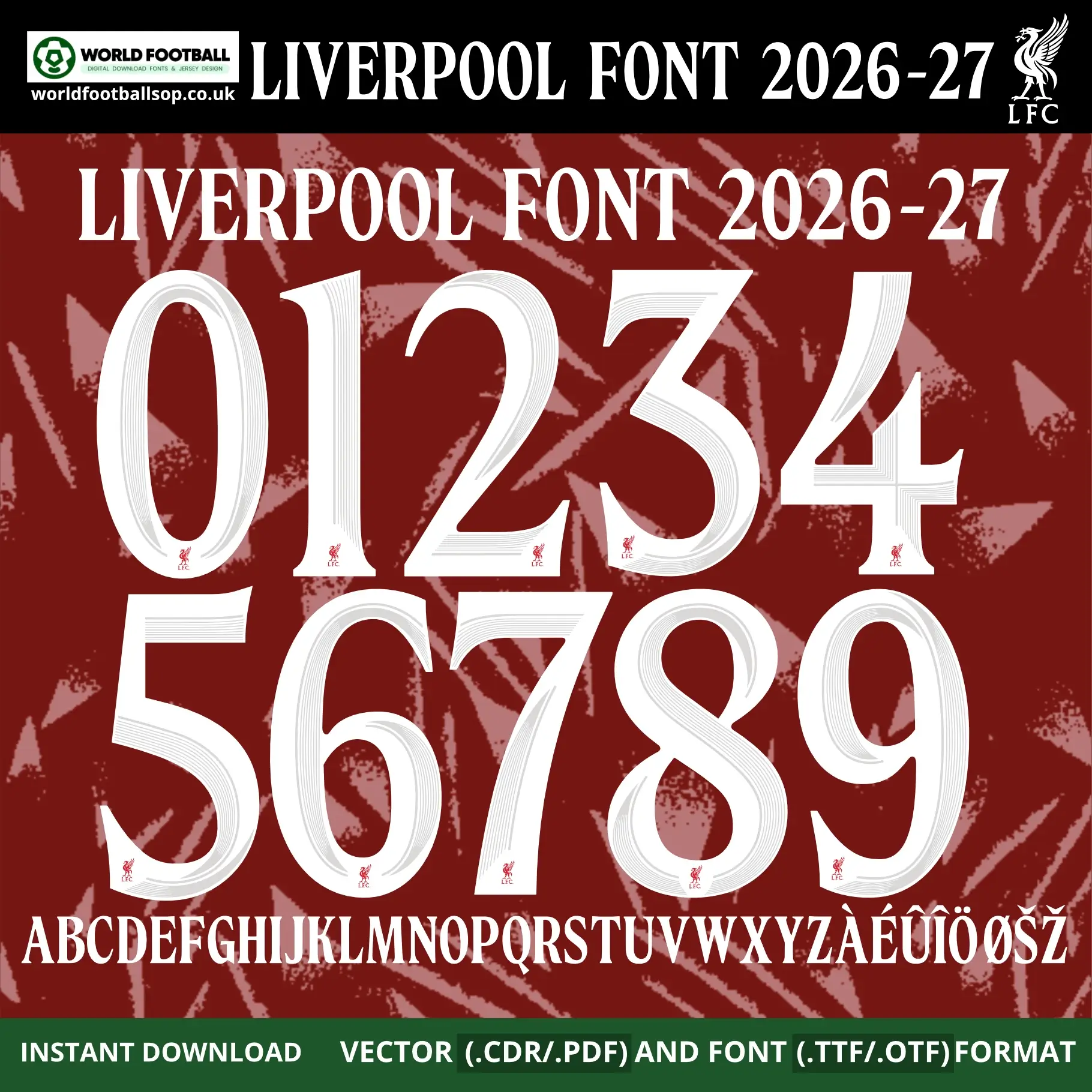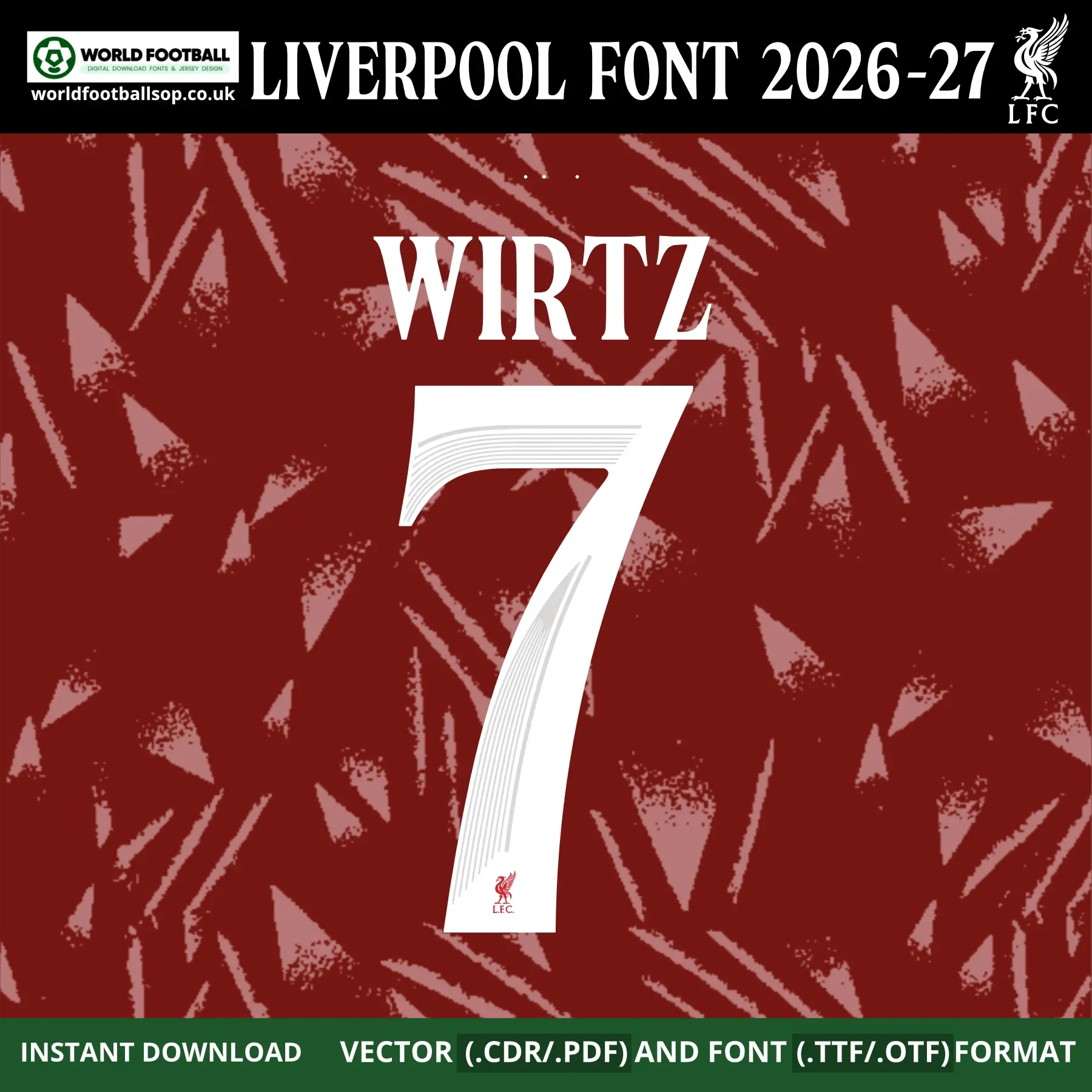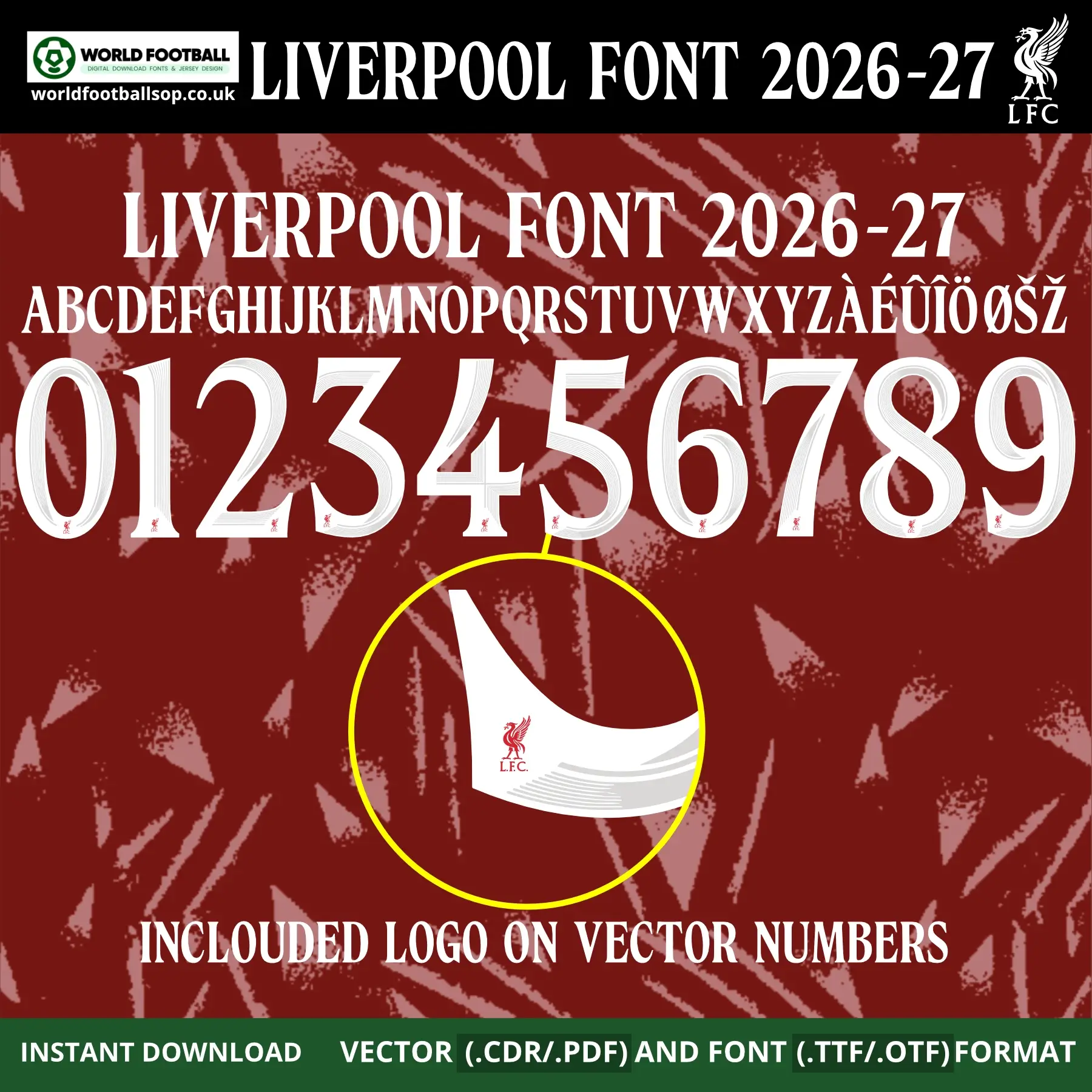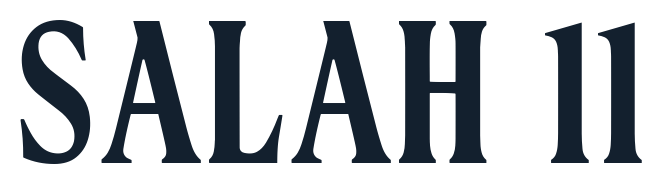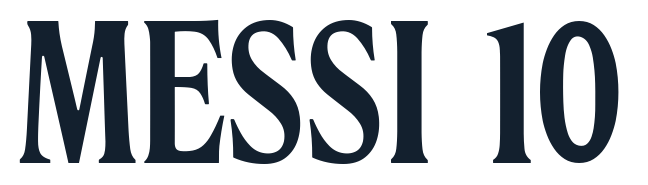
Liverpool Font UCL 2026-27 – Official‑style Jersey Typography
This Liverpool Font UCL & Cup 2026-27 recreates the distinctive, elegant lettering used on Liverpool’s iconic deep red home shirts for the 2026-27 UEFA Champions League and cup season at Anfield. The tall, wide numbers and letters feature a striking white fill with a beautiful multi-line parallel inner-stripe detail running through every character — creating an almost calligraphic, brushstroke-like effect that gives Liverpool’s typography a uniquely refined look unlike any other Premier League club font. Set against the iconic deep Anfield red background with its distinctive geometric diagonal slash and triangle pattern, these numbers carry the full visual weight of a night under the Anfield lights.
The font football is supplied in both desktop formats (TTF/OTF) and scalable vector files so you can work comfortably in your favourite design software. The clean white lettering with multi-line inner detail on the rich deep red Liverpool home kit background seen in the previews mirrors LFC’s official 2026-27 UCL colour palette, making your mockups and prints look instantly match-ready. Every vector number includes the embedded LFC Liver Bird crest logo for maximum authenticity, clearly visible at the base of each character.
Full uppercase alphabet A-Z and numbers 0-9 with extended accents (À, É, Û, Î, Ö, Ø, Š, Ž)
Preview layouts showing complete number set and example name/number combo – WIRTZ 7
UCL & Cup accuracy: Inspired by the exclusive Liverpool Font UCL 2026-27, valid for Champions League, FA Cup and League Cup applications
Unique multi-line detail: The parallel inner-stripe calligraphic effect is the defining feature of Liverpool’s 2026-27 kit font – perfectly reproduced in both TTF/OTF and vector formats
LFC crest included: Liver Bird crest embedded on every vector number for fully authentic results